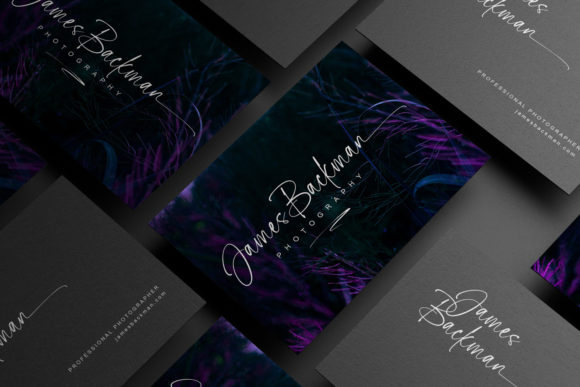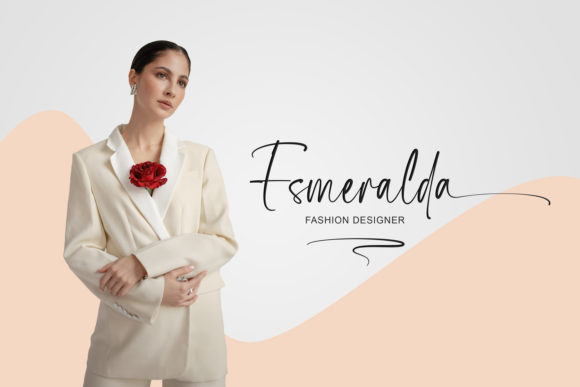
Primal Signature Font
db-ku.com - Script & Handwritten -- Primal Signature is a thin lettered and graceful script font. Fall for its ravishing style and use it to create gorgeous designs. This font is PUA encoded which means you can access all of the glyphs and swashes with ease!